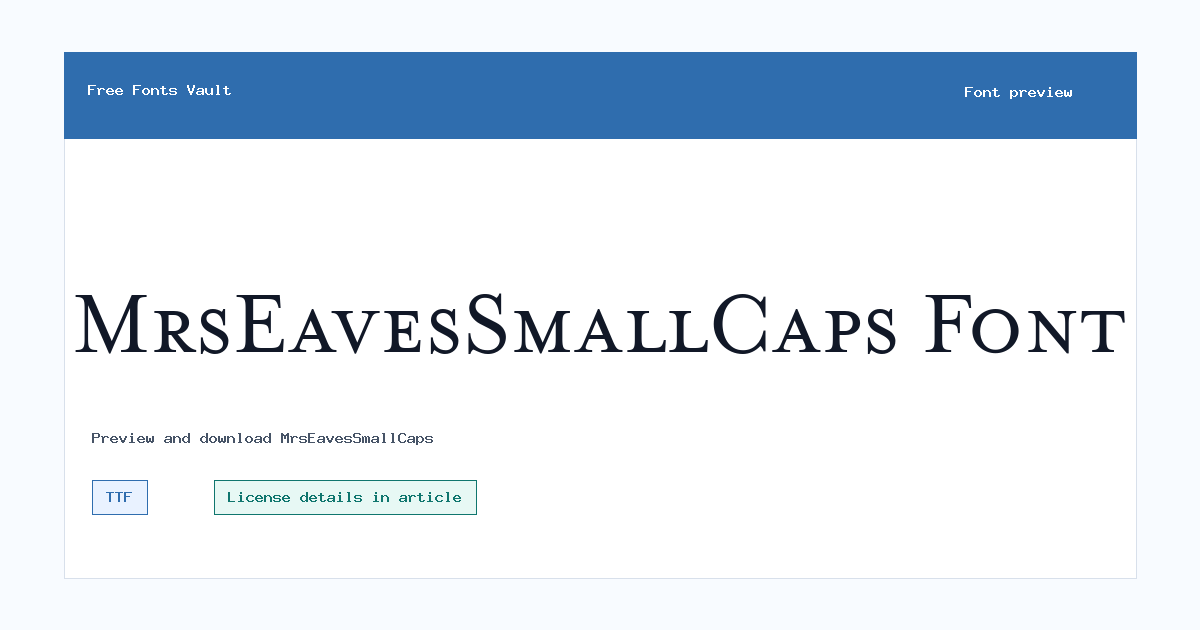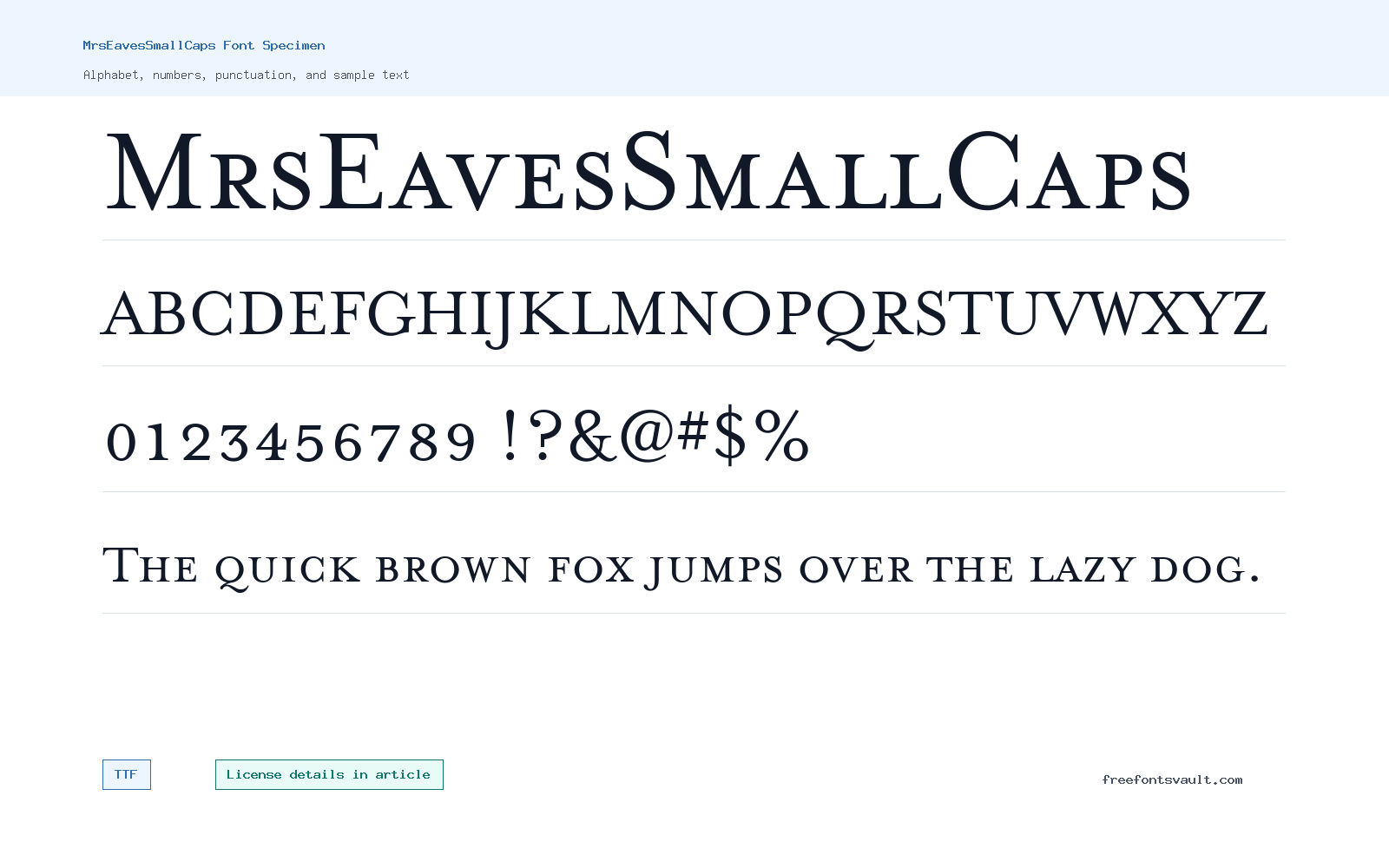
MrsEavesSmallCaps
- Designer Emigre Graphics, Designed by Zuzana Licko
MrsEavesSmallCaps is a small-caps font style with a formal, bookish feel. It is best tested in short text where letter shapes, spacing, and uppercase-style rhythm can be seen clearly.
MrsEavesSmallCaps uses the small-caps look to give words a steady, composed texture. Instead of feeling like a casual handwriting or bold display face, it works more like a refined text accent: controlled, neat, and suited to titles or labels that need a traditional tone. The font file listed for download is a TTF regular style, which makes it easy to test in many desktop design apps and common preview tools.
Use it for short settings first: names, section headings, invitations, editorial labels, certificate text, or decorative title lines. Small caps can lose clarity when used for long paragraphs, especially at small sizes, so preview your own wording before committing to a design. If the design feels too dense, add a little letter spacing and pair it with a simpler body font rather than another detailed serif or display face.
For a more natural layout, give the letters enough breathing room and avoid stacking many small-caps lines together. A single name, label, or short title will usually look better than a full paragraph. This style can add a classic voice to a page, but it should support the design rather than carry every line of text.
- Small-caps letter style suited to compact display text and refined labels
- Formal rhythm that works well for short all-caps-style settings, initials, and name treatments
- Editorial headings, book-style titles, nameplates, and section labels
- Invitations, certificates, stationery accents, and short formal text
The designer information lists Emigre Graphics and Zuzana Licko.
What kind of font is MrsEavesSmallCaps?
It is a small-caps style font. The look is formal and compact, making it better for headings, labels, and short decorative text than for long reading passages.
Is MrsEavesSmallCaps good for body text?
It is better for short text. For paragraphs, use a more readable companion font and keep MrsEavesSmallCaps for emphasis or display lines.